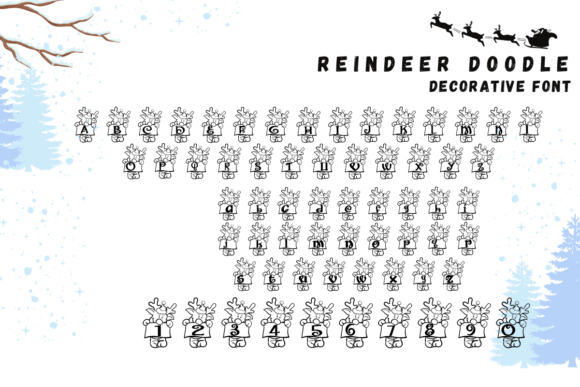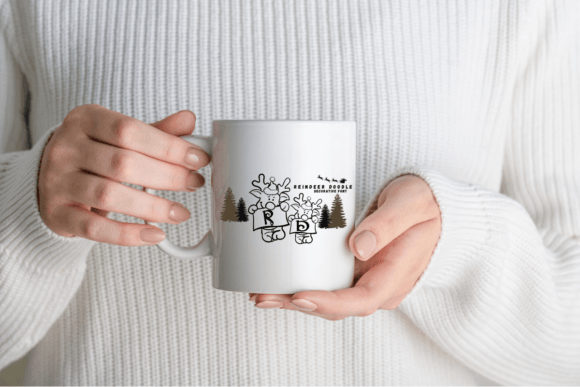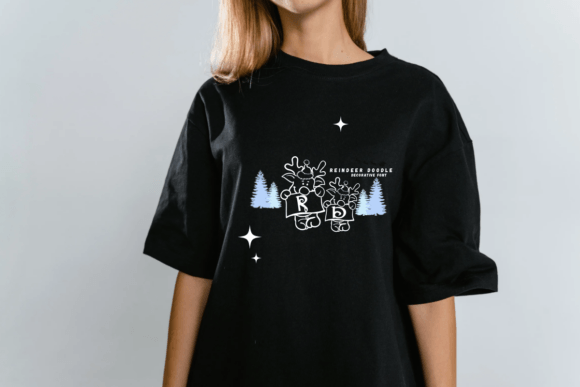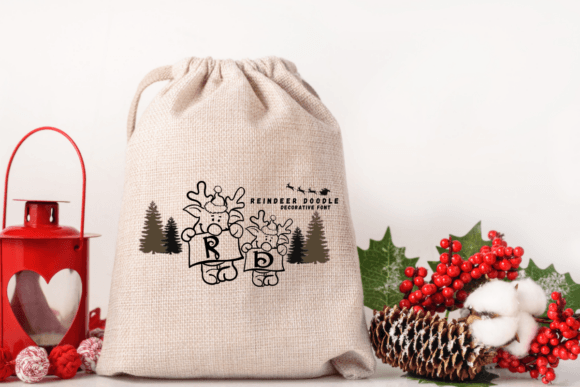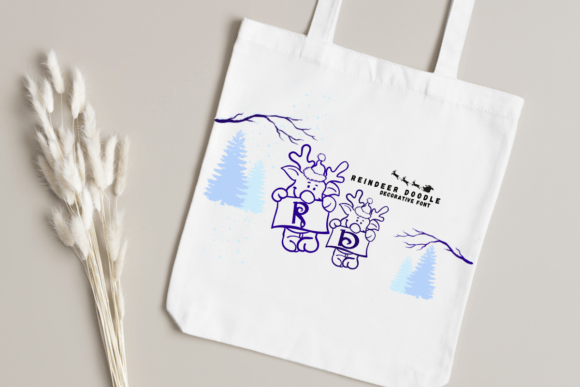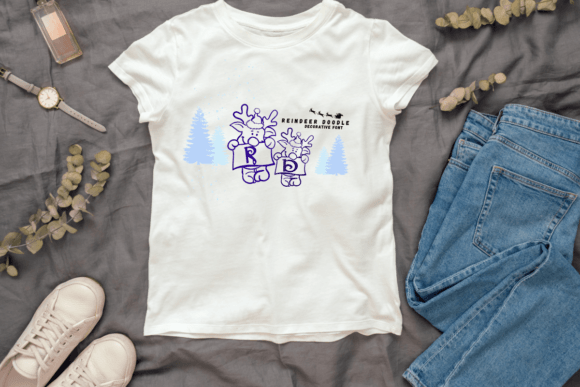
Introduction to Reindeer Doodle Font
Reindeer Doodle is a fun and decorative font featuring adorable reindeer holding letters.
Perfect for adding a playful, festive touch to your designs .
Key Features of Reindeer Doodle Font
Why Choose Reindeer Doodle Font?
Reindeer Doodle Font offers exceptional quality and versatility, making it a valuable addition to your design toolkit. Whether you’re creating for personal projects or commercial use, Reindeer Doodle Font delivers professional results.